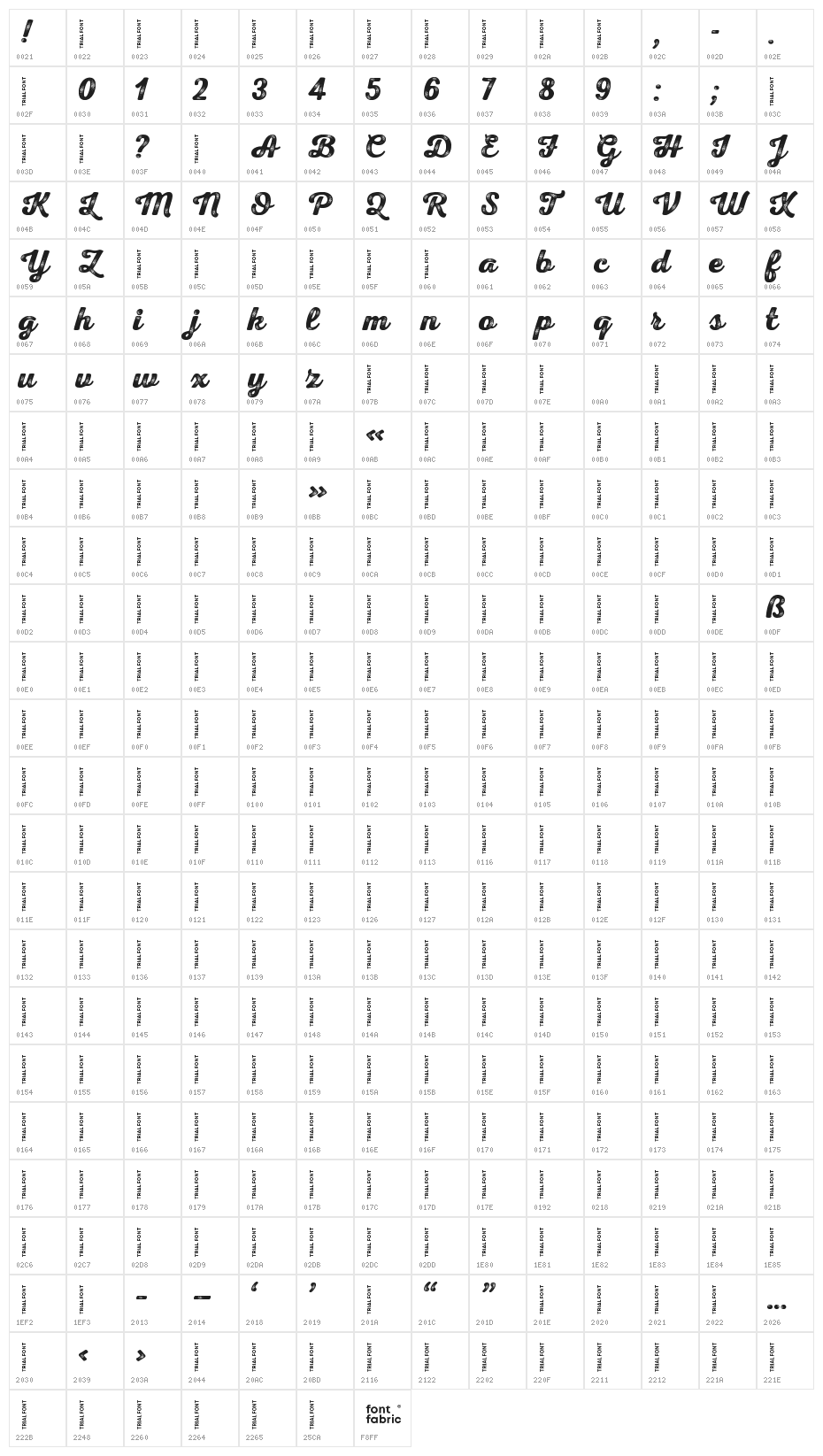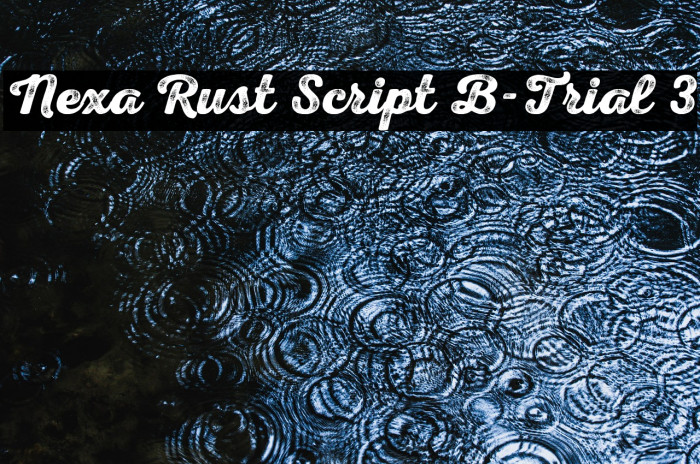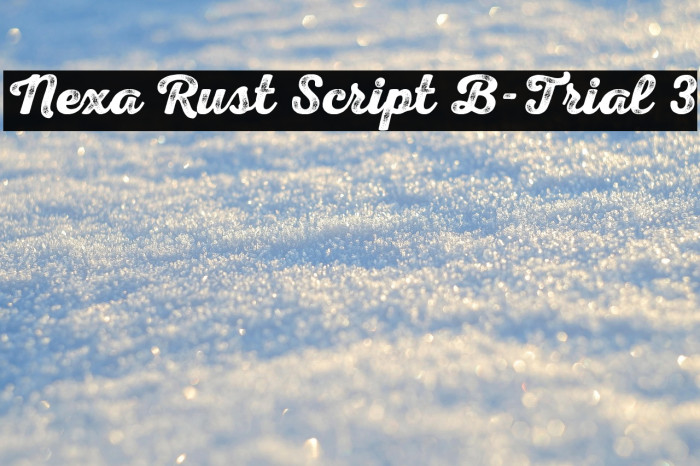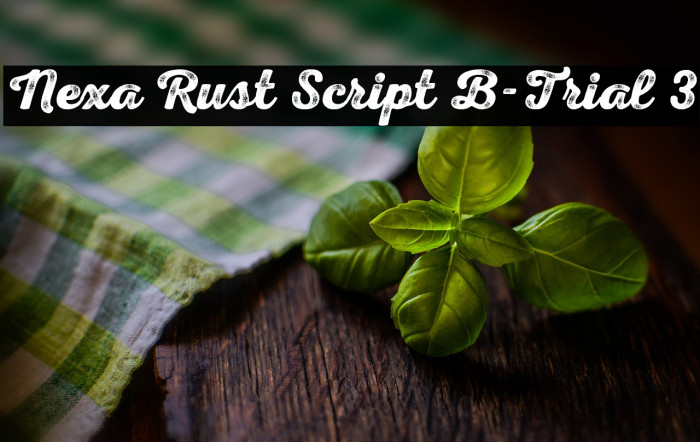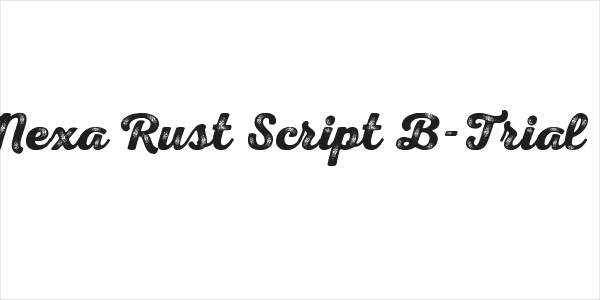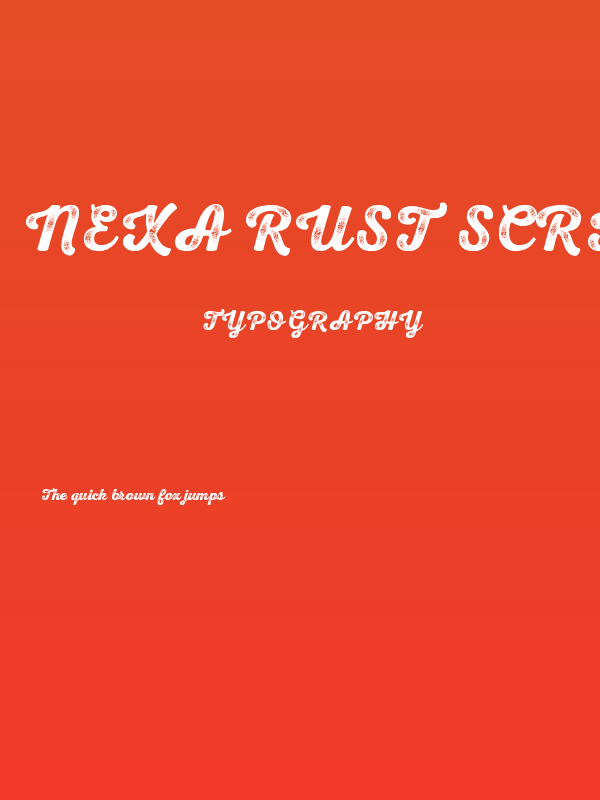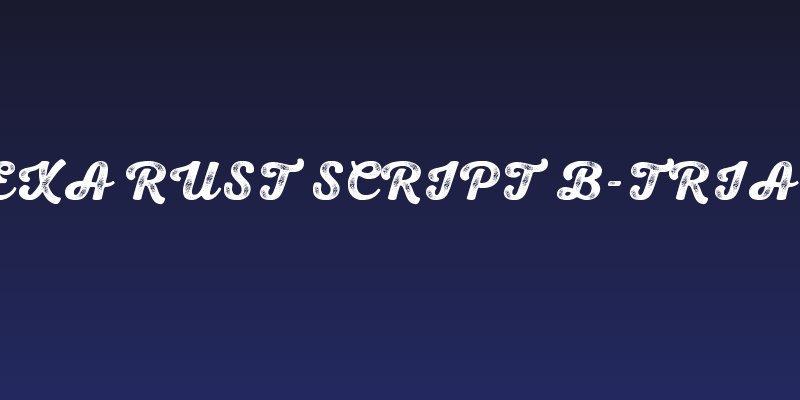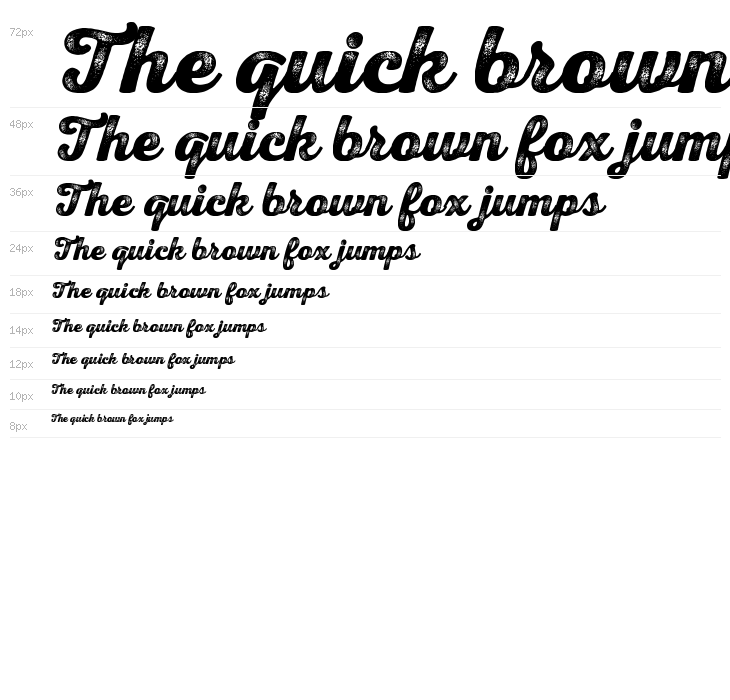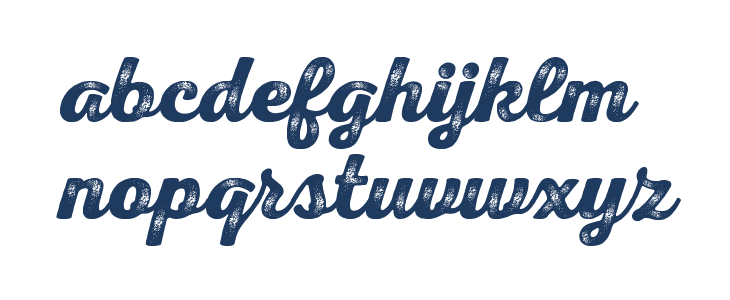
Nexa Rust Script B-Trial 3 Font
Nexa Rust Script B-Trial 3 Description
This font features a bold, script style with a textured, distressed appearance, giving it a vintage and handcrafted feel. The letters are connected, providing a flowing and dynamic look. The uppercase and lowercase characters maintain a consistent style, with swashes and curls adding to the decorative nature. The numerals and special characters follow the same textured pattern, ensuring uniformity across all glyphs. This font is ideal for projects that require a rustic or retro aesthetic, such as branding, packaging, or posters.
| Proposed Projects | Ideal for branding, packaging, posters, and any design needing a retro or rustic touch. |